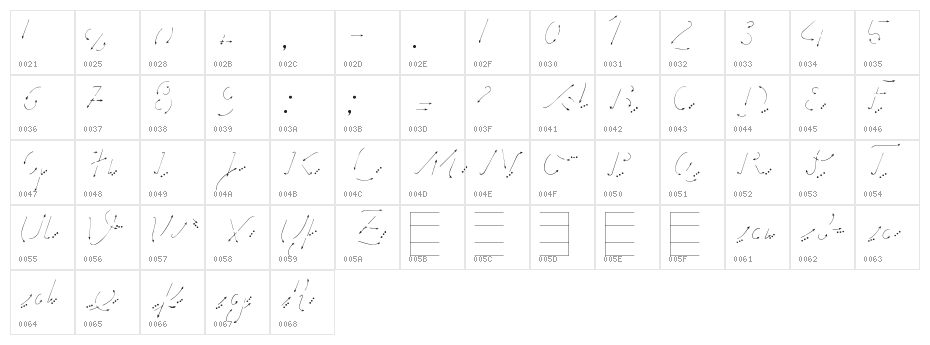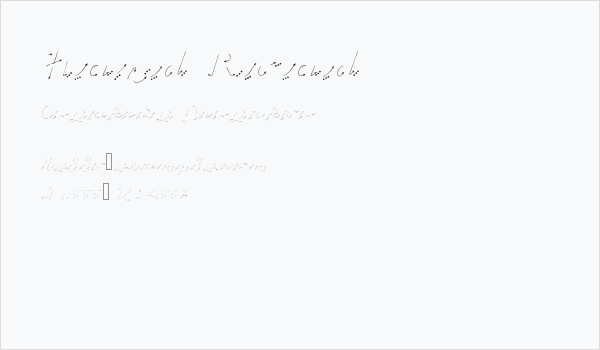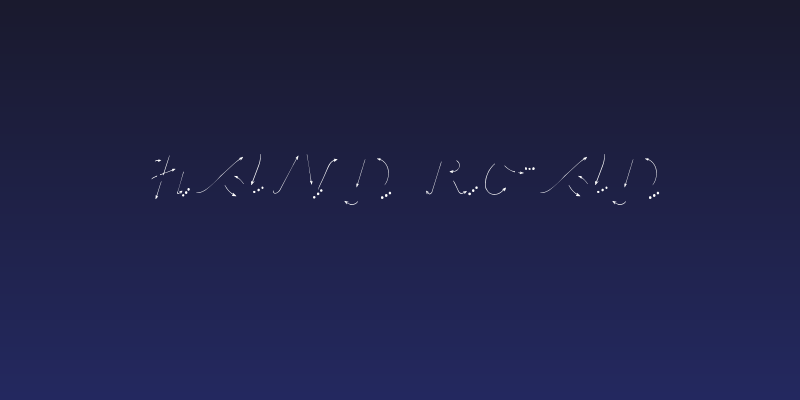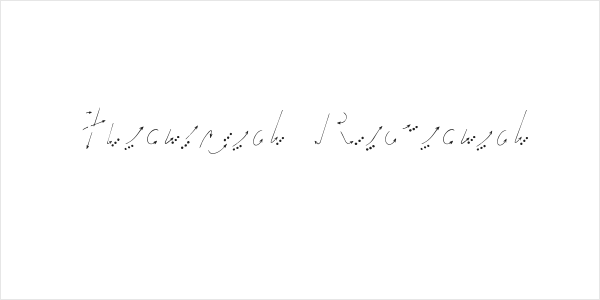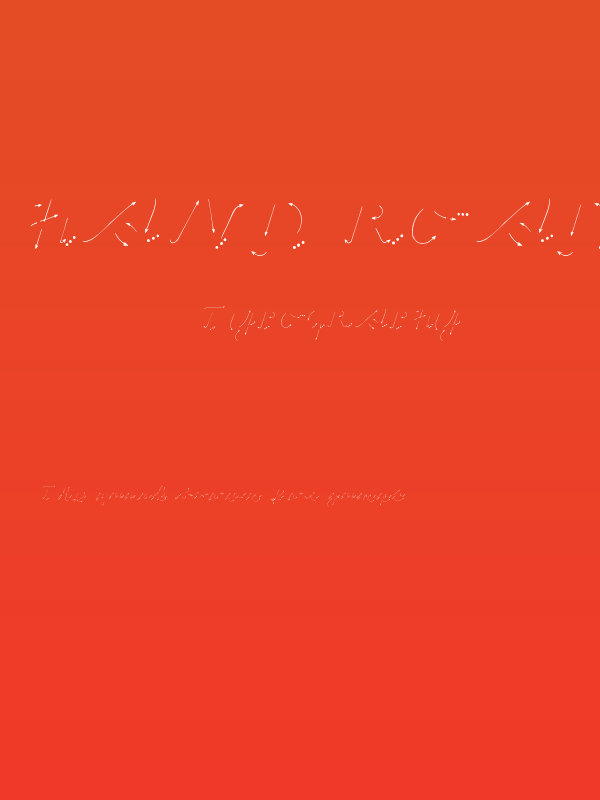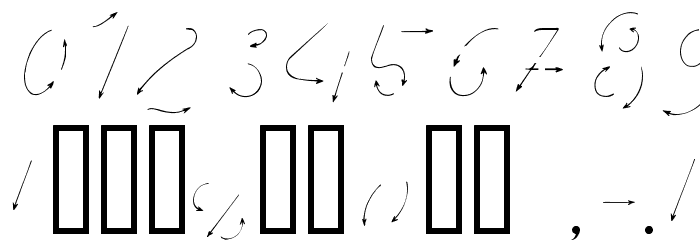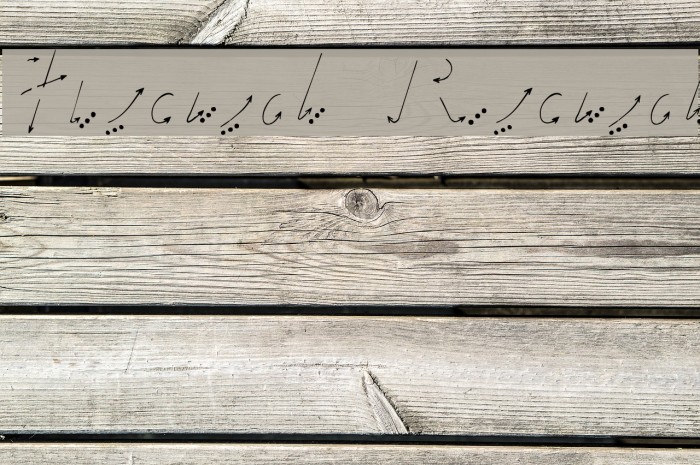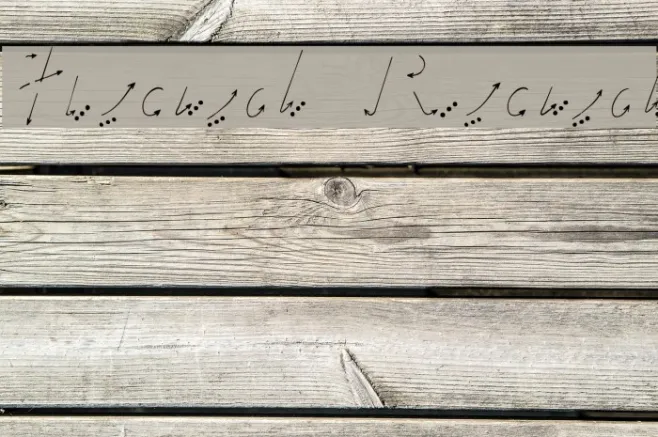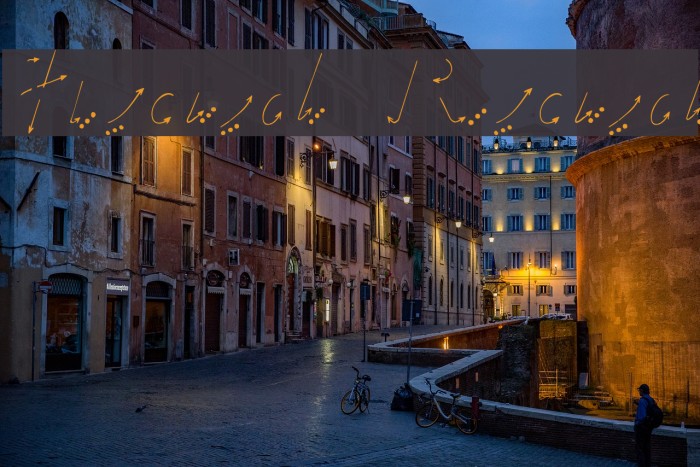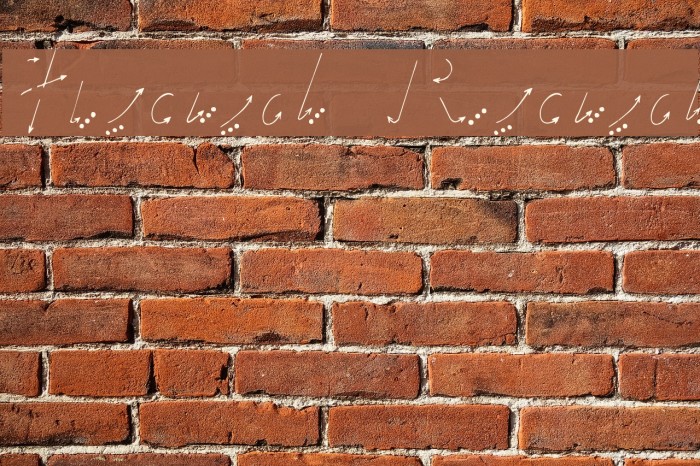
Hand Road Font
Hand Road Description
This font features a distinctive handwritten style, characterized by its fluid and continuous strokes that mimic natural handwriting. The letters are elegantly connected, creating a seamless flow that is both artistic and personal. The uppercase letters maintain a consistent height, while the lowercase letters exhibit a slight slant, adding to the casual and informal appearance. The numerals are uniquely styled with playful curves and loops, enhancing the font's whimsical nature. Special characters are integrated smoothly, maintaining the overall aesthetic. This font is perfect for projects that require a personal touch, such as invitations, greeting cards, and creative branding.